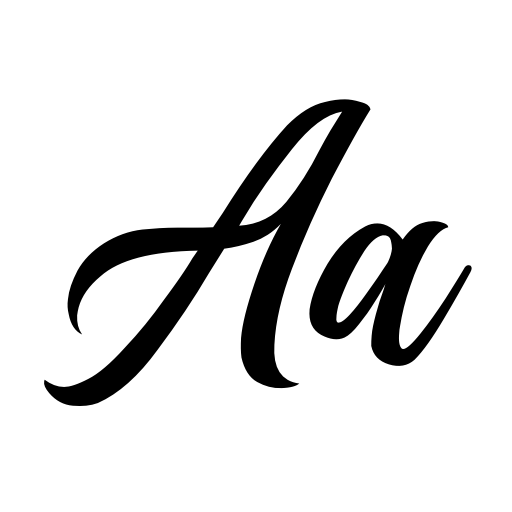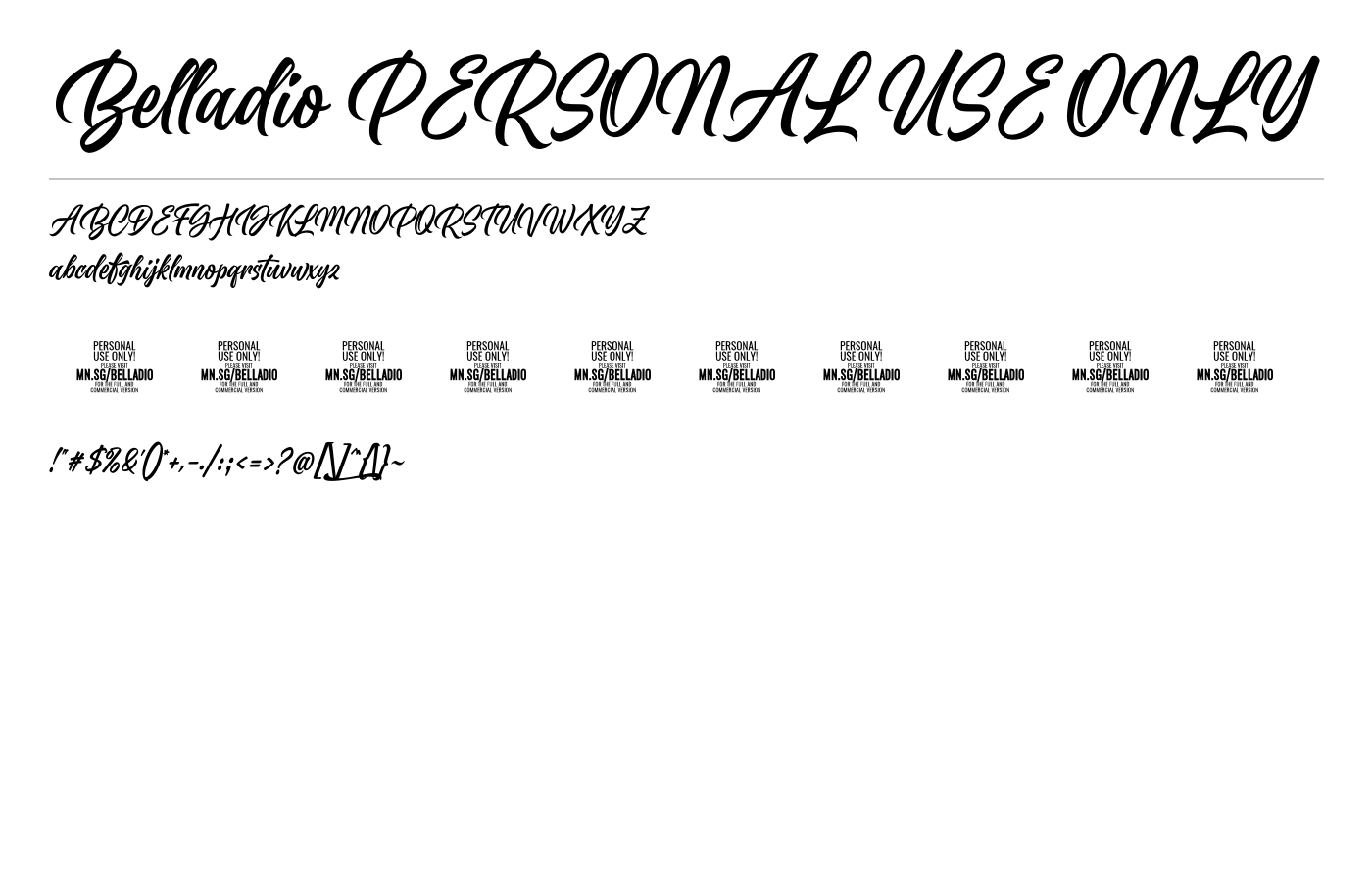
Belladio is an elegant script font with a flowing, handwritten style characterized by smooth, connected strokes and moderate contrast. It features a lively personality with its slightly bold weight and graceful curves, making it ideal for invitations, branding, and creative projects that seek a personal, stylish touch. This font works beautifully in display settings, adding a chic and sophisticated flair to headlines and logos.
Belladio PERSONAL USE ONLY Font
About Belladio PERSONAL USE ONLY Font